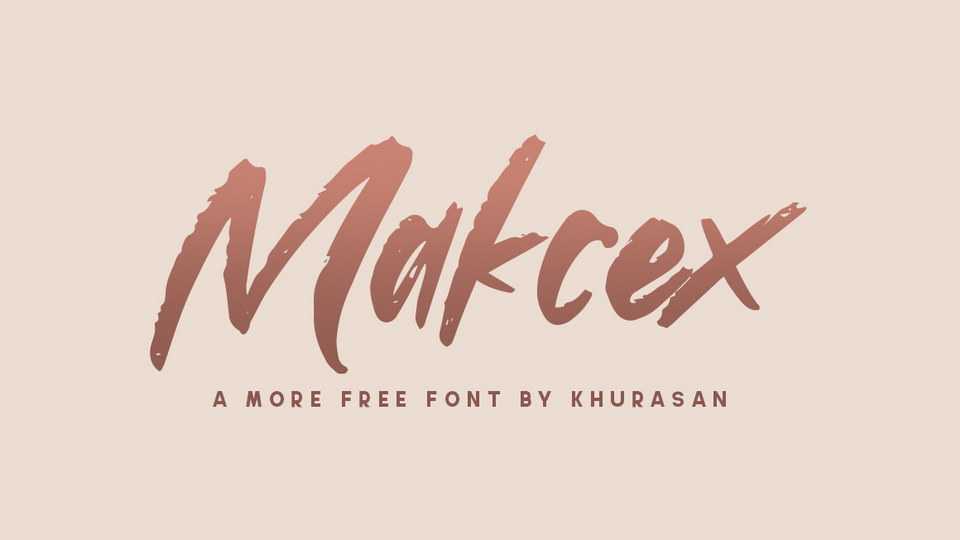
Download Makcex font, a bold and strong hand lettered brush typeface with a casual feel. Use Makcex for ads, logos, branding or any other design that requires a cool look.